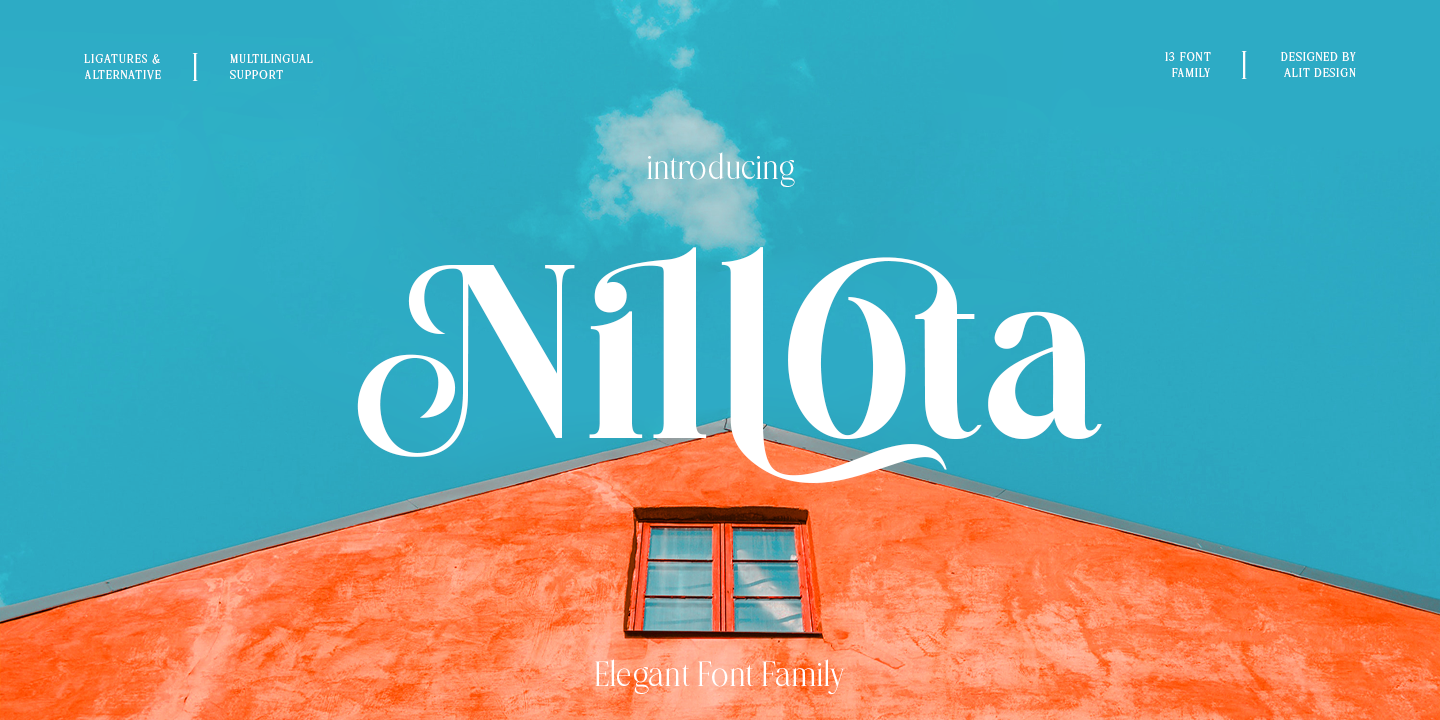
The Nillota Font is perfect for boutique fashion branding, artisanal craft labels, creative studio logos, contemporary art gallery signage, independent designer marketing, handmade jewelry packaging, artistic workshop materials, creative freelancer portfolios, and modern lifestyle brand identity.
What makes the Nillota Font so exciting is its distinctive creative personality that perfectly balances artistic expression with contemporary sophistication. This captivating typeface embodies the unique character and innovative spirit that defines independent creative professionals, creating an immediate impression of originality and artistic authenticity. The font's creative character communicates the individuality and artistic vision that creative businesses need to distinguish themselves from mainstream competitors and attract clients who appreciate unique design solutions and authentic creative expression.
The Nillota Font family includes Regular weight featuring complete uppercase and lowercase character sets, comprehensive numerical collections, essential punctuation marks, and creative flourishes that maintain the artistic aesthetic throughout your independent creative and contemporary design projects.
Creative professionals and independent businesses consistently select Nillota Font Free Download for projects that require authentic creative appeal and distinctive artistic communication. This exceptional typeface excels in environments where establishing unique creative identity and artistic credibility is crucial for attracting clients who value original design thinking and innovative creative solutions. The font's distinctive character helps communicate the creativity and professionalism that artistic customers expect from established independent creators and boutique creative service providers.
The distinctive qualities of Nillota Font reflect the evolving landscape of independent creative work where artistic vision, personal expression, and innovative design create memorable brand experiences and lasting client relationships. Each character demonstrates the thoughtful balance between creative flair and professional polish that characterizes successful independent creative businesses and boutique design studios. The font's proportions and spacing create perfect harmony between artistic expression and practical functionality that modern creative professionals require for effective client communication and creative brand positioning.
Contemporary creative enterprises appreciate how Nillota Font communicates artistic authenticity and creative professionalism. Whether designing materials for independent design studios, creating branding for artisanal product lines, or developing marketing for creative freelance services, this font delivers the unique character that distinguishes authentic creative work from generic design solutions. The typeface works exceptionally well for businesses emphasizing creative innovation, artistic quality, and the distinctive appeal of independent creative vision and boutique design services.
The versatility of Nillota Font extends across multiple creative applications and independent business marketing initiatives. Creative consultants utilize its distinctive character for professional presentation materials and client communication pieces. Artisanal product makers choose it to communicate their commitment to handcrafted quality and creative design excellence. Independent galleries rely on its sophisticated appearance to attract art collectors seeking unique creative experiences and original artistic expressions.
Digital creative platforms benefit from Nillota Font's optimized performance across various artistic applications and creative communication channels. The font maintains its distinctive character whether displayed on creative websites, mobile portfolio apps, or digital creative marketing materials. This technical reliability ensures consistent brand presentation across all creative communication platforms and artistic engagement scenarios.
The psychological impact of Nillota Font resonates with audiences who value creative authenticity and seek distinctive design solutions that reflect personal style and artistic vision. The typeface serves as a visual signature of creative excellence and artistic integrity that helps independent creative businesses build passionate relationships with clients who appreciate original thinking and innovative design approaches. This connection to creative authenticity and artistic innovation makes it invaluable for establishing memorable independent creative brand identities.
Creative marketing specialists and independent design professionals recognize Nillota Font as an essential tool for authentic artistic branding. The font captures the essence of creative independence while making artistic expression accessible to contemporary creative businesses who want to communicate their commitment to original design thinking, creative excellence, and the distinctive appeal of independent artistic vision in today's competitive creative marketplace.